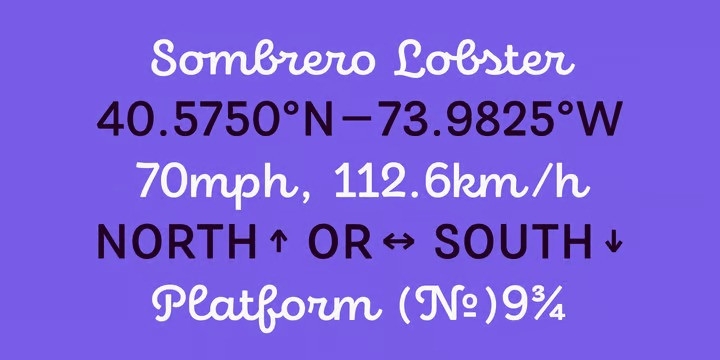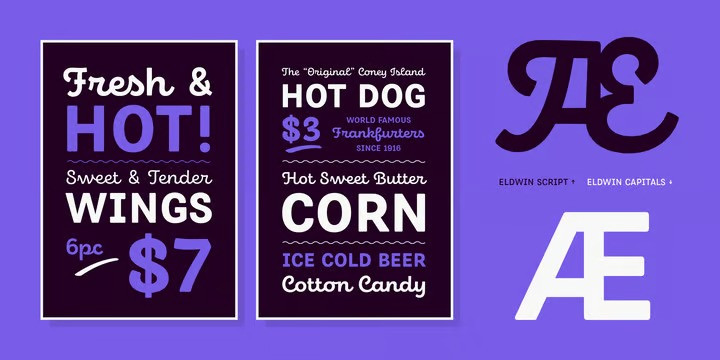
Eldwin Font Family
Eldwin Font are two brand new, creative and unique font styles. With two styles of Script and Capitals, they combine playfulness with functionality, which allows it to perform best in display and headline situations. The inspiration for Eldwin was drawn from traditional Italian and American sign paintings.
Details include six weights in two styles, 526 characters per Script font and 431 characters per Capitals font. Opentype features consist of stylistic alternates, ligatures, fractions, arrows and language support covering Western, South and Central Europe, and Cyrillic.